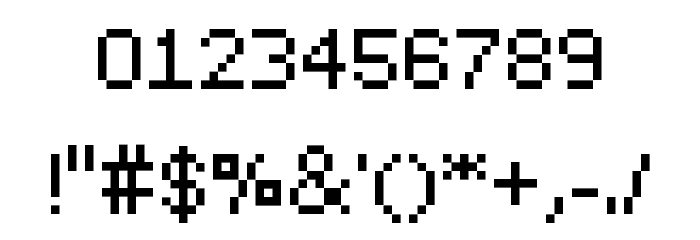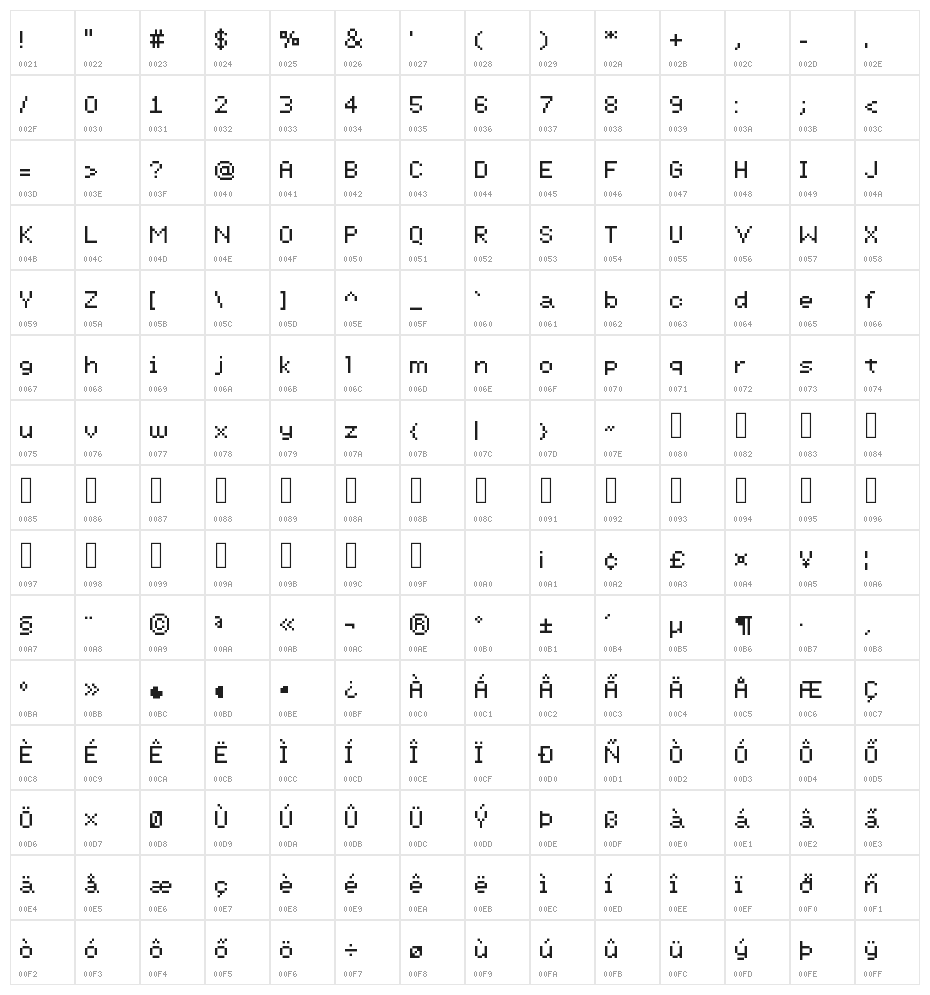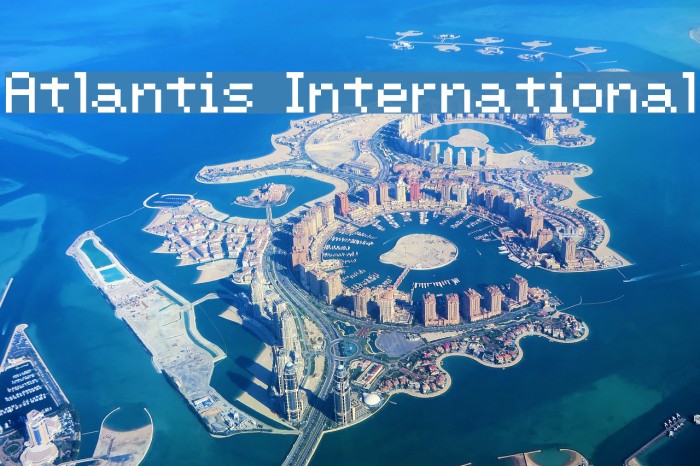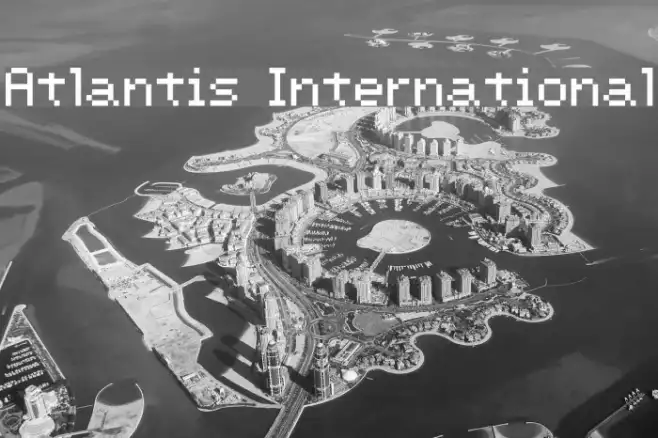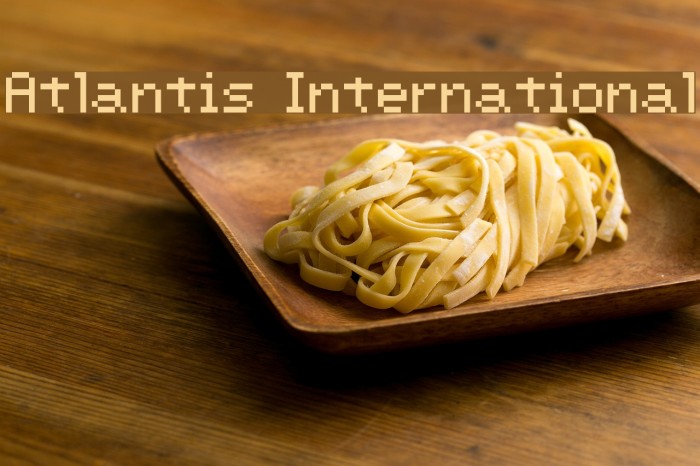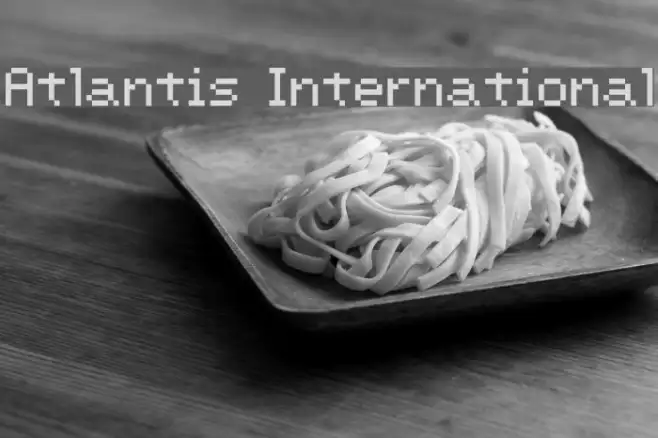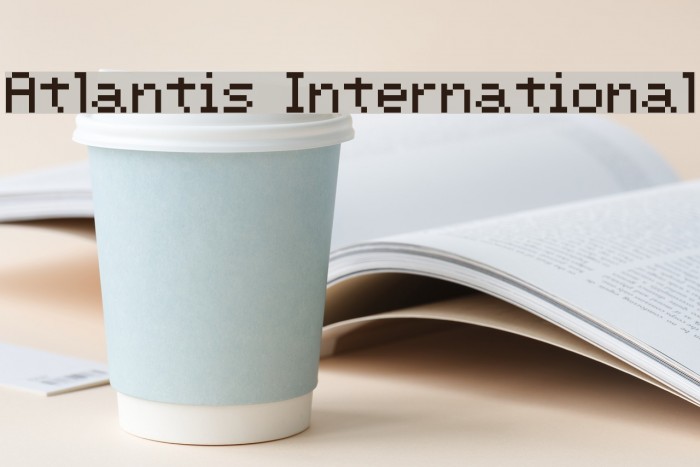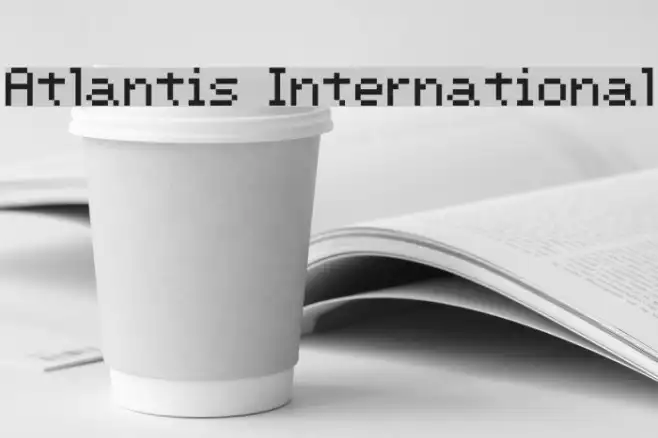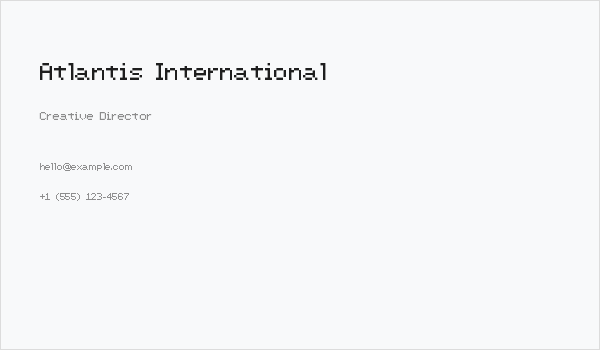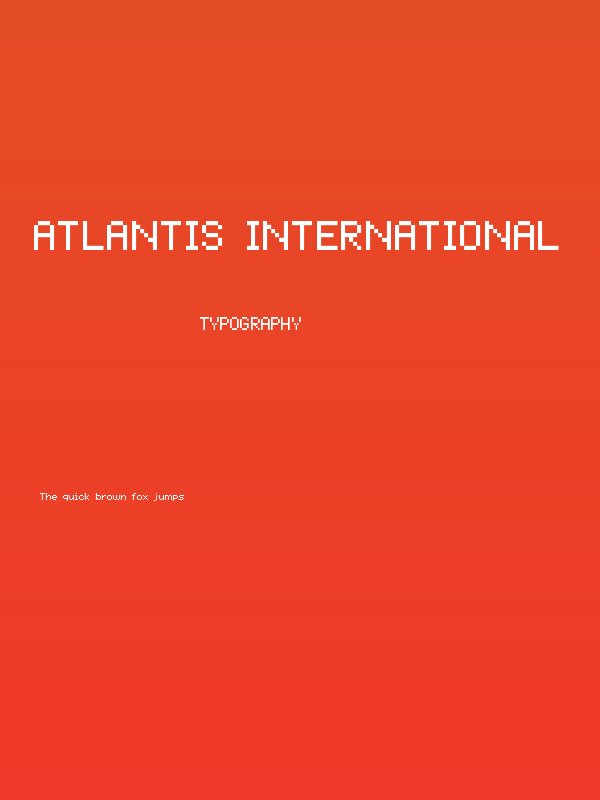
Atlantis International Font
Atlantis International Description
This font features a pixelated, blocky design reminiscent of early digital displays and video game graphics. Each character is composed of square pixels, creating a retro, nostalgic aesthetic. The uppercase and lowercase letters maintain a consistent height and width, contributing to a uniform appearance. The numerals and special characters follow the same pixelated style, ensuring cohesion across all glyphs. This font's simplicity and clarity make it highly legible, even at smaller sizes. Its distinct style is ideal for projects that aim to evoke a sense of nostalgia or reference digital and gaming culture.
| Overall Style | Retro |
| Use Case | Headlines, Logos, Digital displays |
| Proposed Projects | Ideal for retro video games, digital art projects, tech-themed designs, and nostalgic branding. |